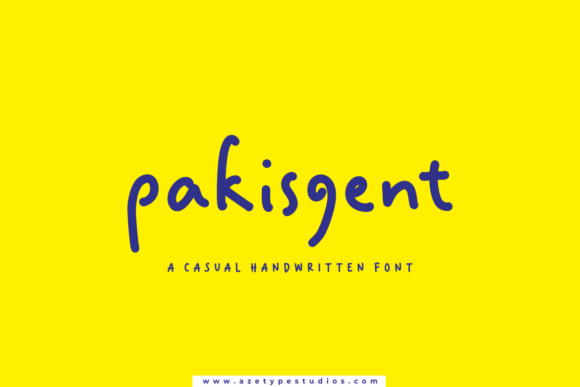
Introducing Pakisgent, the script font that will ignite your creativity and elevate your designs to new heights! This thin and quirky handwritten masterpiece was crafted by the talented Azetype, specifically designed to add a touch of whimsy and personality to your projects.
Pakisgent's casual charm exudes approachability, making it effortlessly readable and versatile. It shines as a captivating headline or dances gracefully upon even the busiest backgrounds. Its hand-drawn strokes evoke a warm and inviting atmosphere, drawing readers in and captivating their attention.
Whether you're embroidering delicate patterns, creating eye-catching invitations, or crafting social media posts that stand out, Pakisgent is your go-to choice. Its versatility knows no bounds, adapting seamlessly to a myriad of styles and applications.
With Pakisgent, you'll unlock a world of endless possibilities. Its unique character adds a touch of playfulness and warmth to your designs, ensuring they leave a lasting impression. Embrace the magic of Pakisgent today and let your imagination soar!